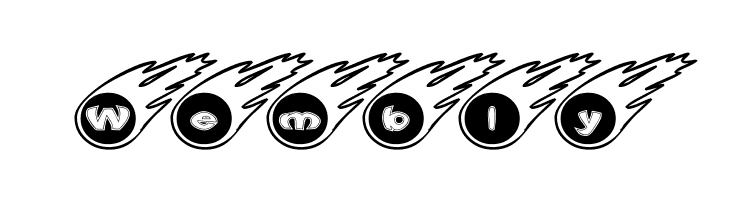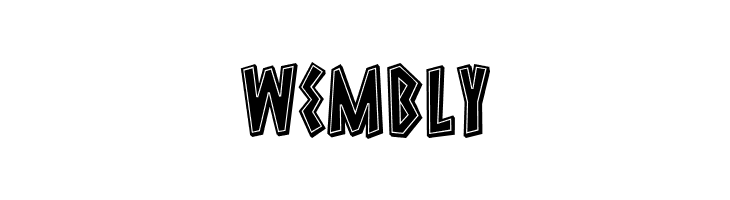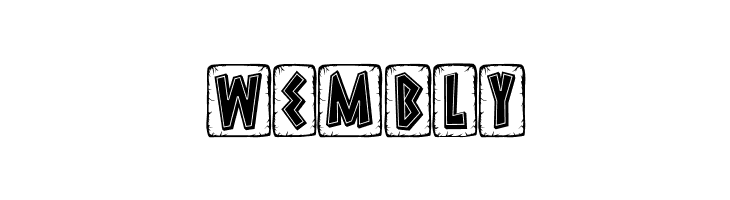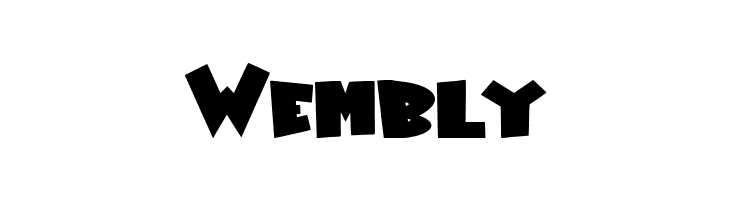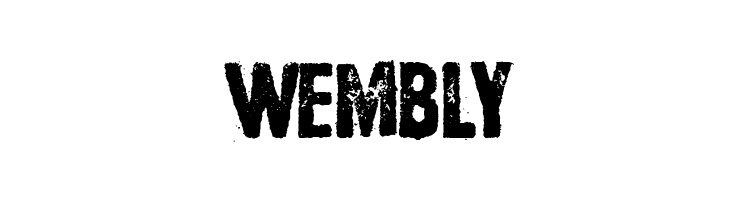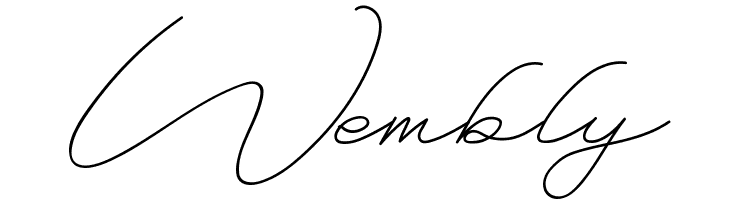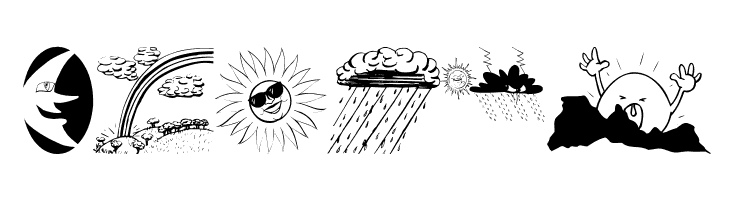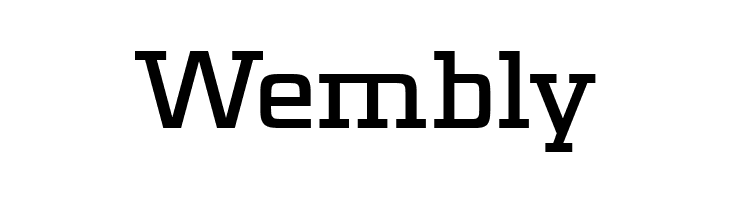
Meteora DEMO Regular Font
A bold, structured font with a modern, geometric style.
Meteor GM Font
A bold, dynamic font with characters in circles and meteor trails, perfect for energetic designs.
MeteoSat Font
Hand-drawn weather and nature-themed dingbat illustrations.
Meteor Fall Font
A bold, playful font with chunky, dynamic letters.
Meteoritox Font
A bold, distressed font with a rugged, vintage appearance.
Meteora Rocky Regular Font
A rugged, hand-drawn font with a rocky texture and bold, structured characters.
Meteora Regular Font
A bold, dynamic font with a 3D effect and angular design.
Hai Meteo Demo Font
A cursive, handwritten script font with a set of geometric symbols.